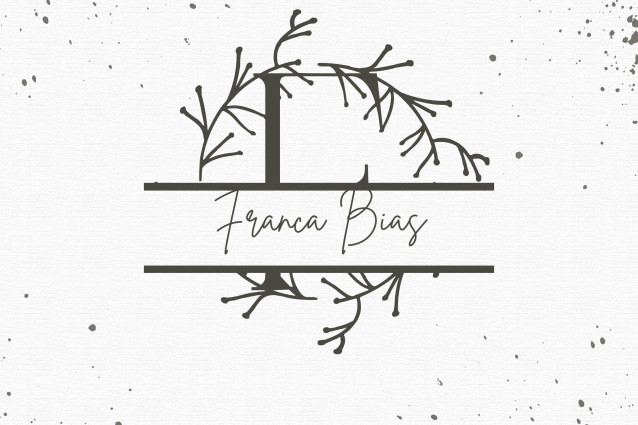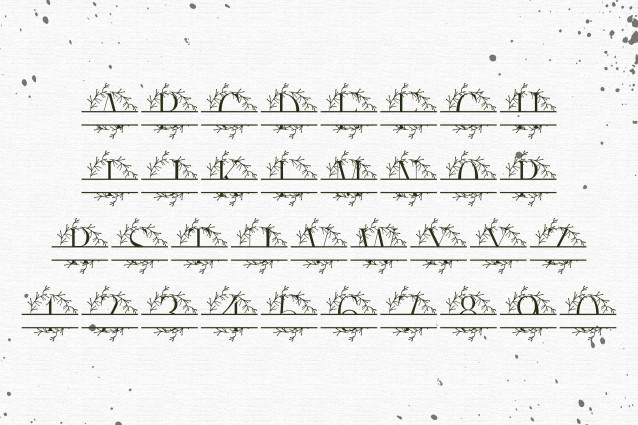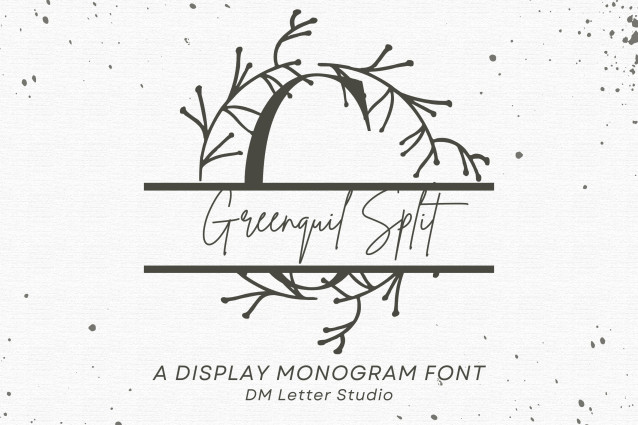
Greenquill Split Monogram Font
Greenquill Split Monogram Font is a sophisticated serif monogram font with elegant leafy accents and a split design for personalization. Each uppercase letter is framed with botanical quill-like details and includes a horizontal gap, allowing you to insert names, dates, or custom text with ease. Perfect for weddings, branding, signage, and Cricut projects, this font combines timeless serif elegance with organic natural beauty.